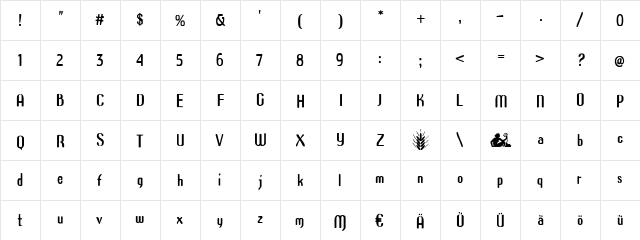
Azimech Regular
Design Context for Azimech Typeface
Azimech is a composed and adaptable typeface that performs quietly and consistently across a wide range of design contexts.